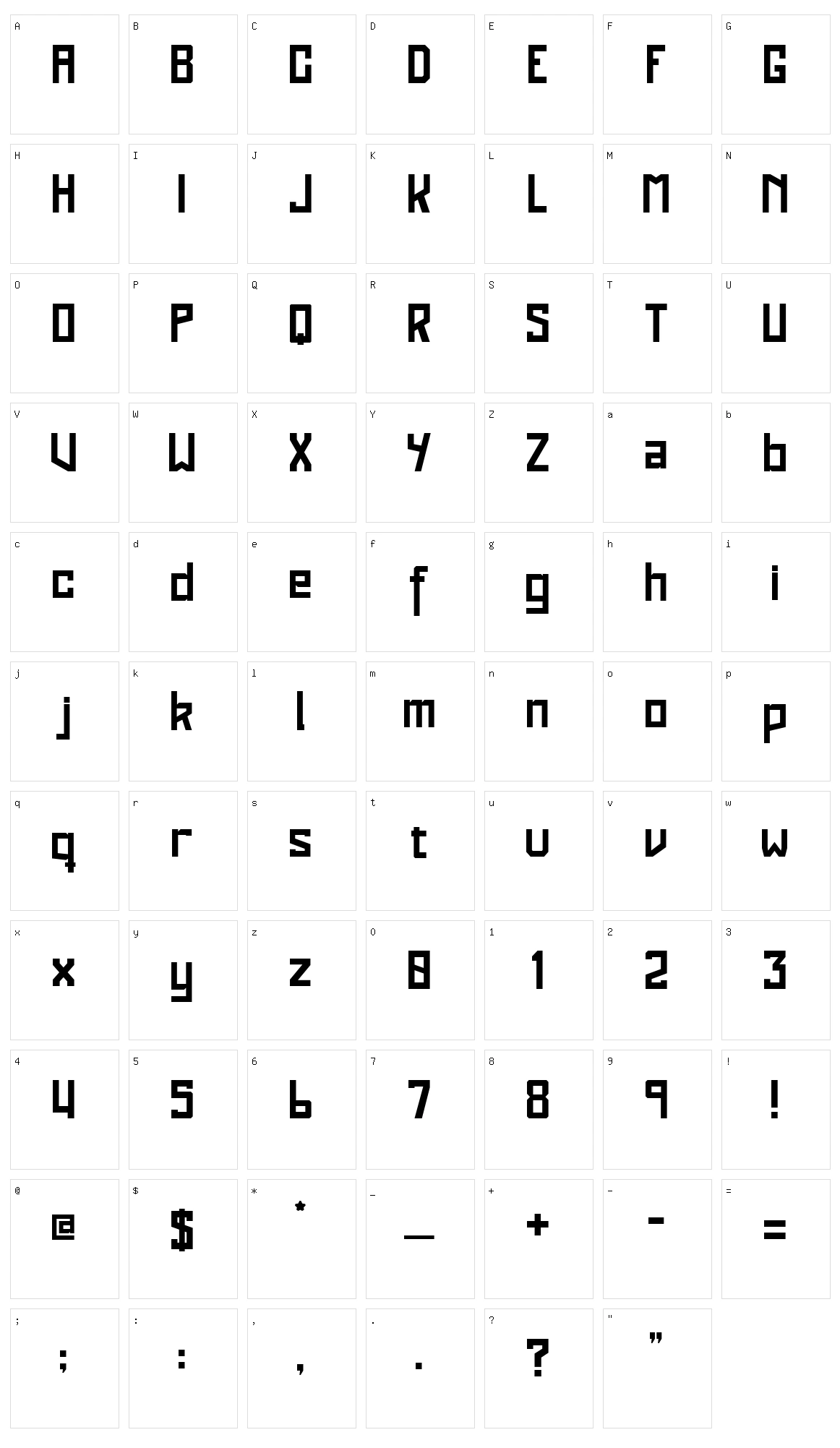
The free font Replay is carefully designed by Christofer Lundholm, showcasing a thoughtful balance of creativity and usability and falls under the Square font style. When you download the ZIP file, it contains only 10.79 KB of font files, making it lightweight and quick to download. Please review the license details below to understand permitted usage and distribution rights. If license information is not available, we recommend using this font for personal projects only or contacting the author directly for commercial usage permissions.